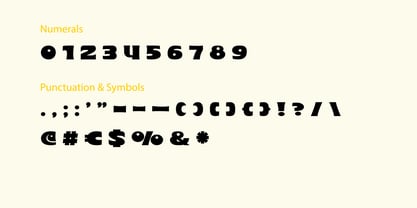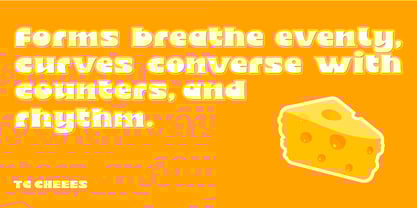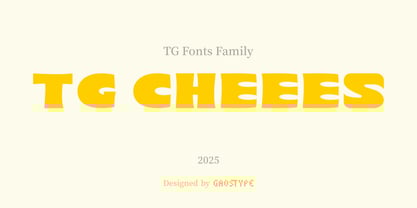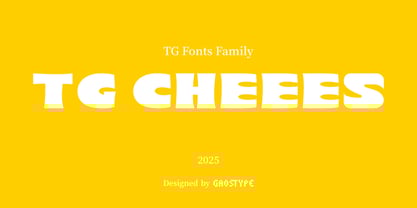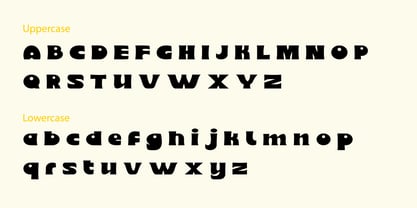
TG Cheees
by Weishan Gao
The TG Cheees Font Family was designed by Weishan Gao and published by Weishan Gao. TG Cheees contains 1 styles. More about this family
Headline: Plump, Playful & Irresistibly Warm — Just Like Cheesecake Description: Sink your teeth into this delightfully rounded font, crafted to capture the soft, indulgent texture of classic cheesecake. Its plump letterforms, organic edges, and retro-modern balance bring a cozy, approachable vibe to any project. Perfect for bakery branding, café menus, dessert packaging, and all designs that crave a sweet, comforting touch. Key Features: Uppercase, lowercase, numerals & punctuation included Uniformly bold weight for a satisfyingly substantial feel Rounded terminals and subtle organic texture for a "soft-to-the-eye" look Ideal for food, lifestyle, and hospitality design projects
Designers: Weishan Gao
Foundry: Weishan Gao
TG Cheees